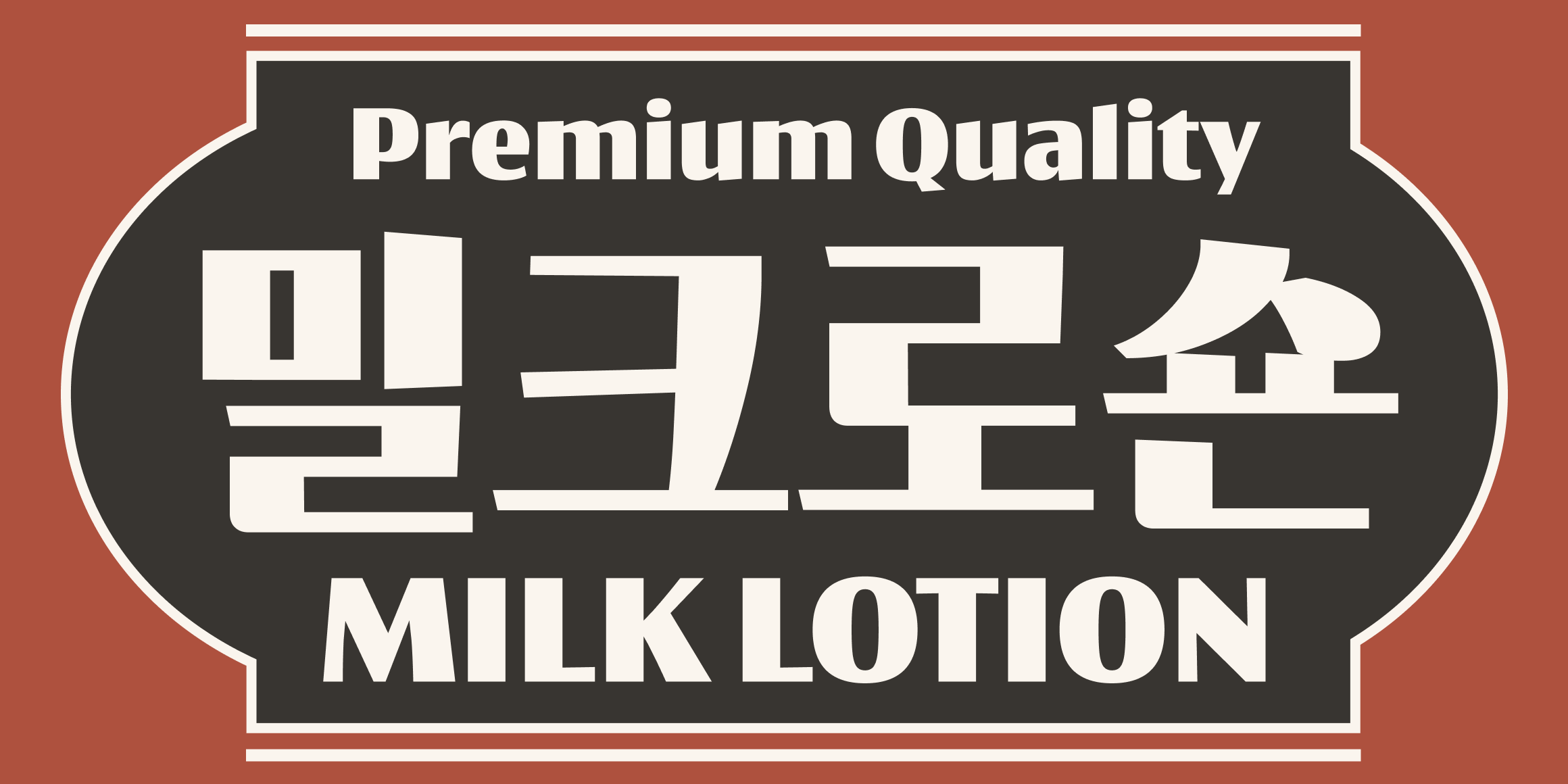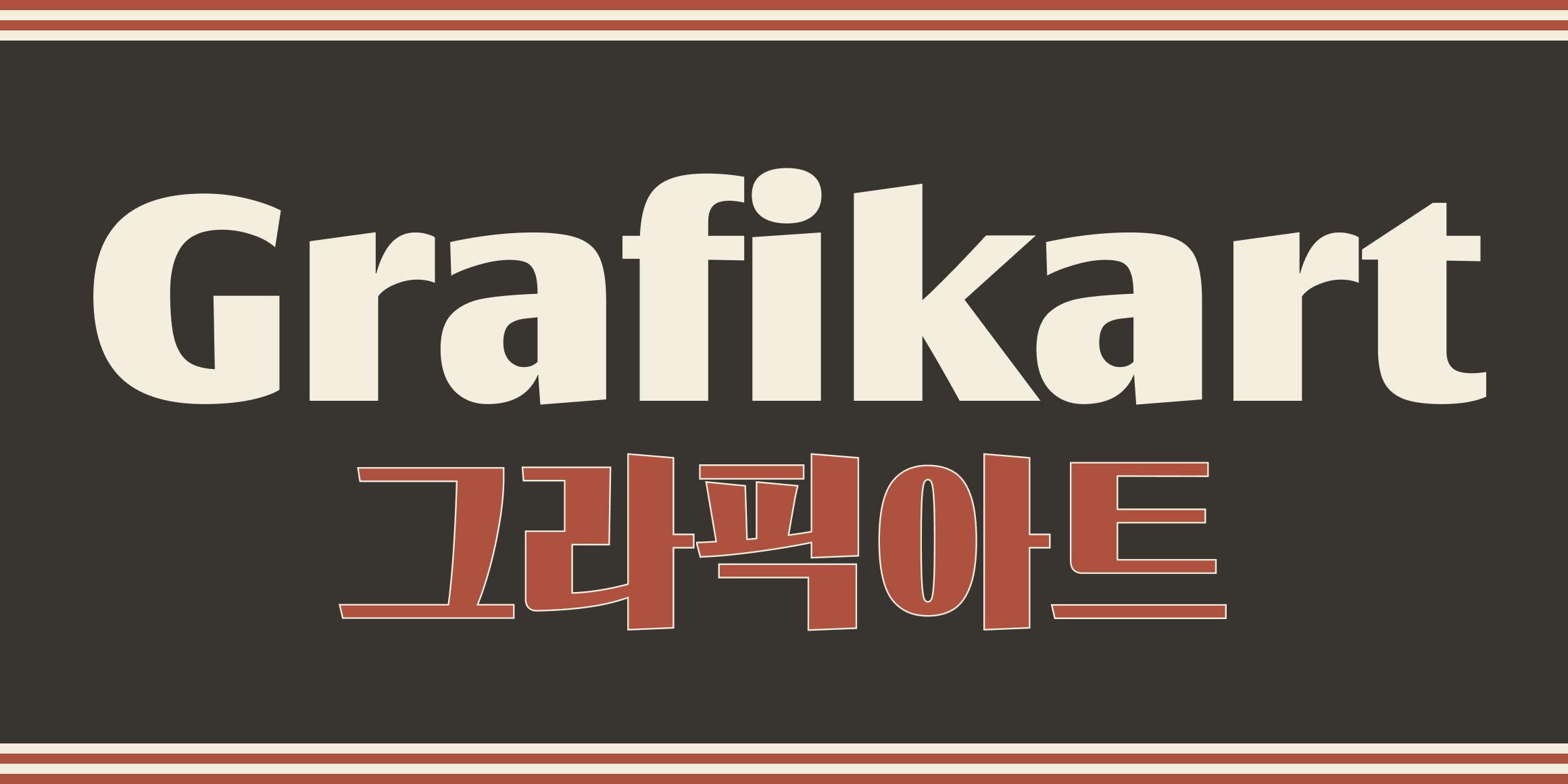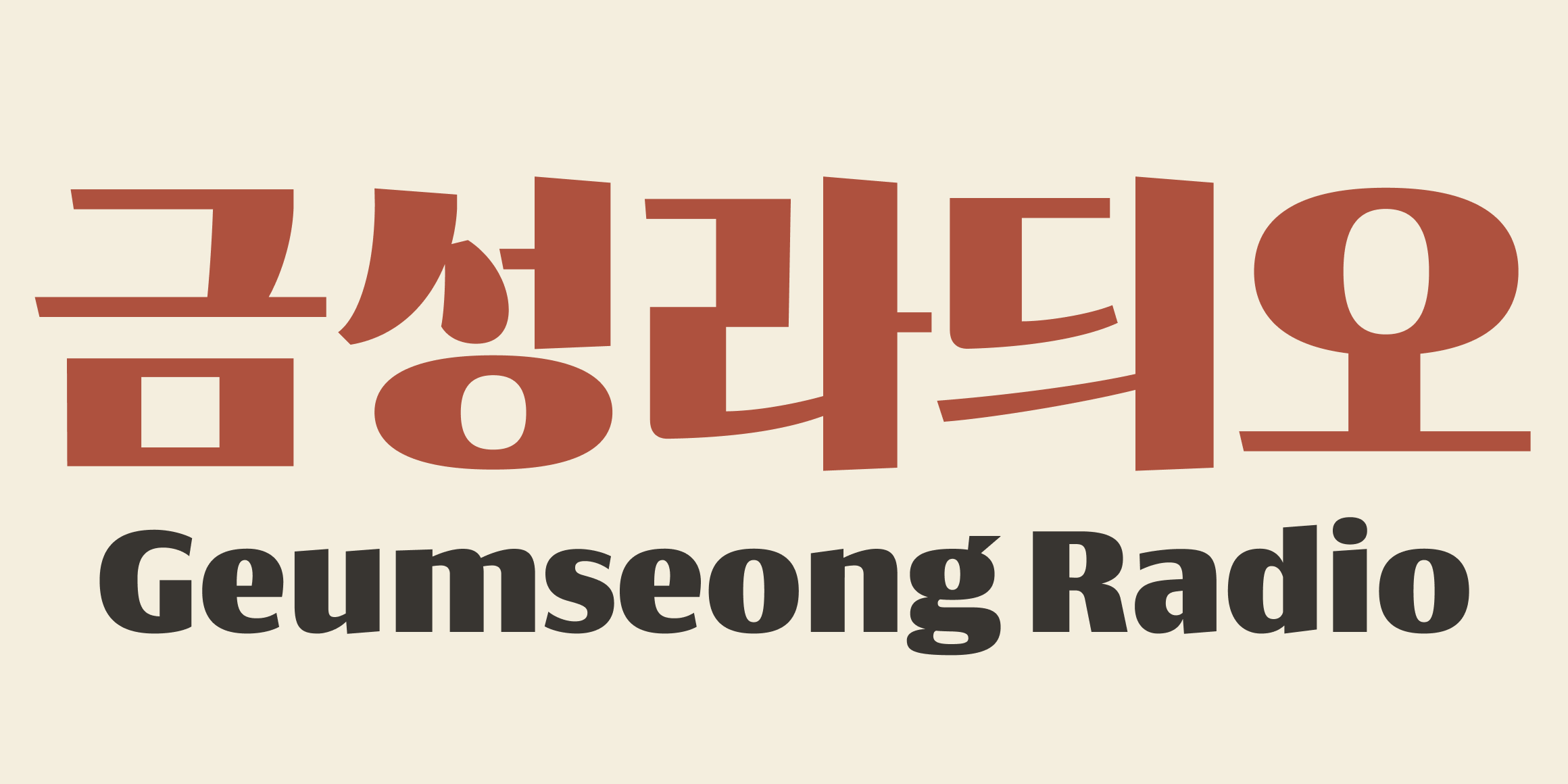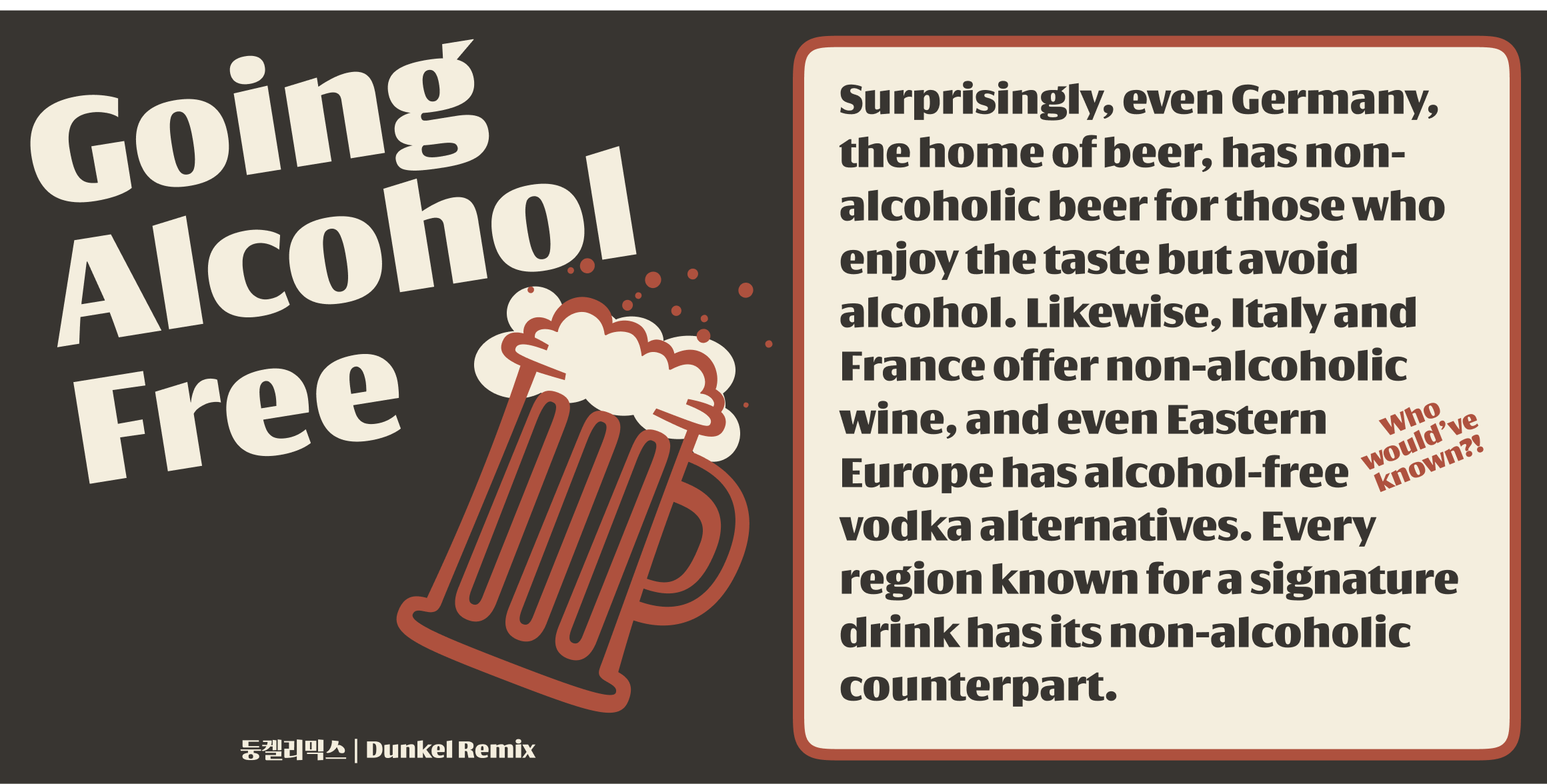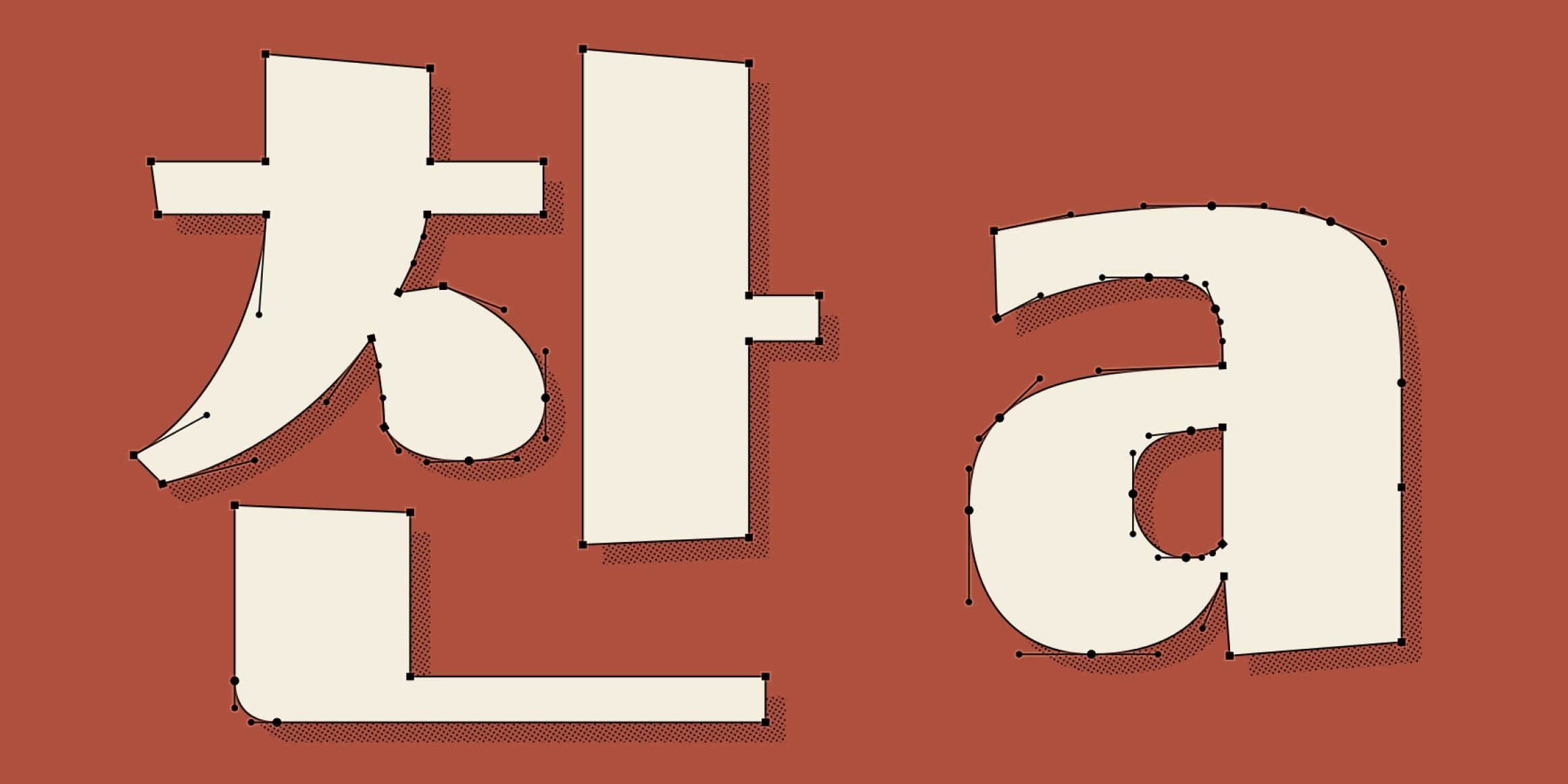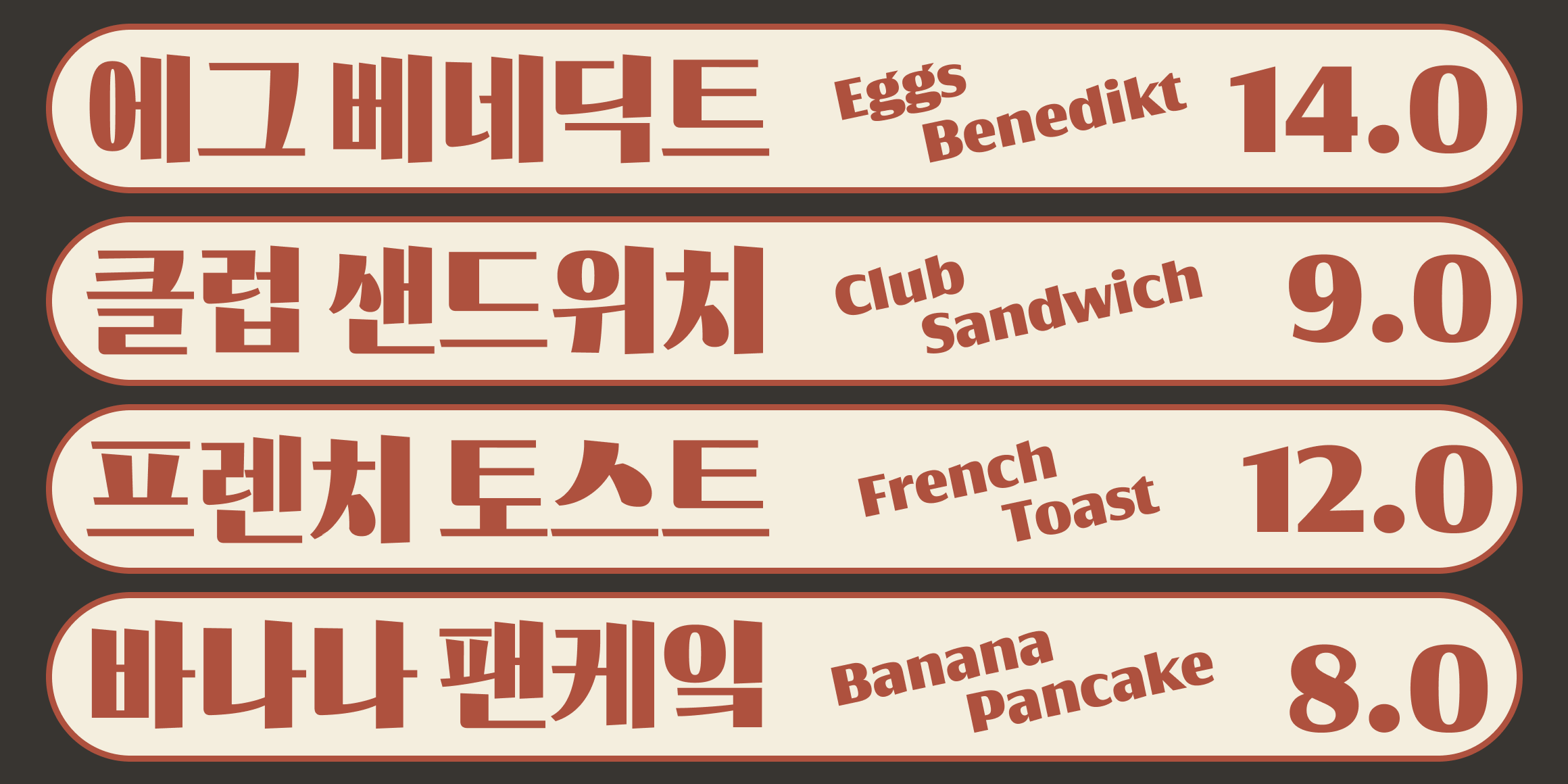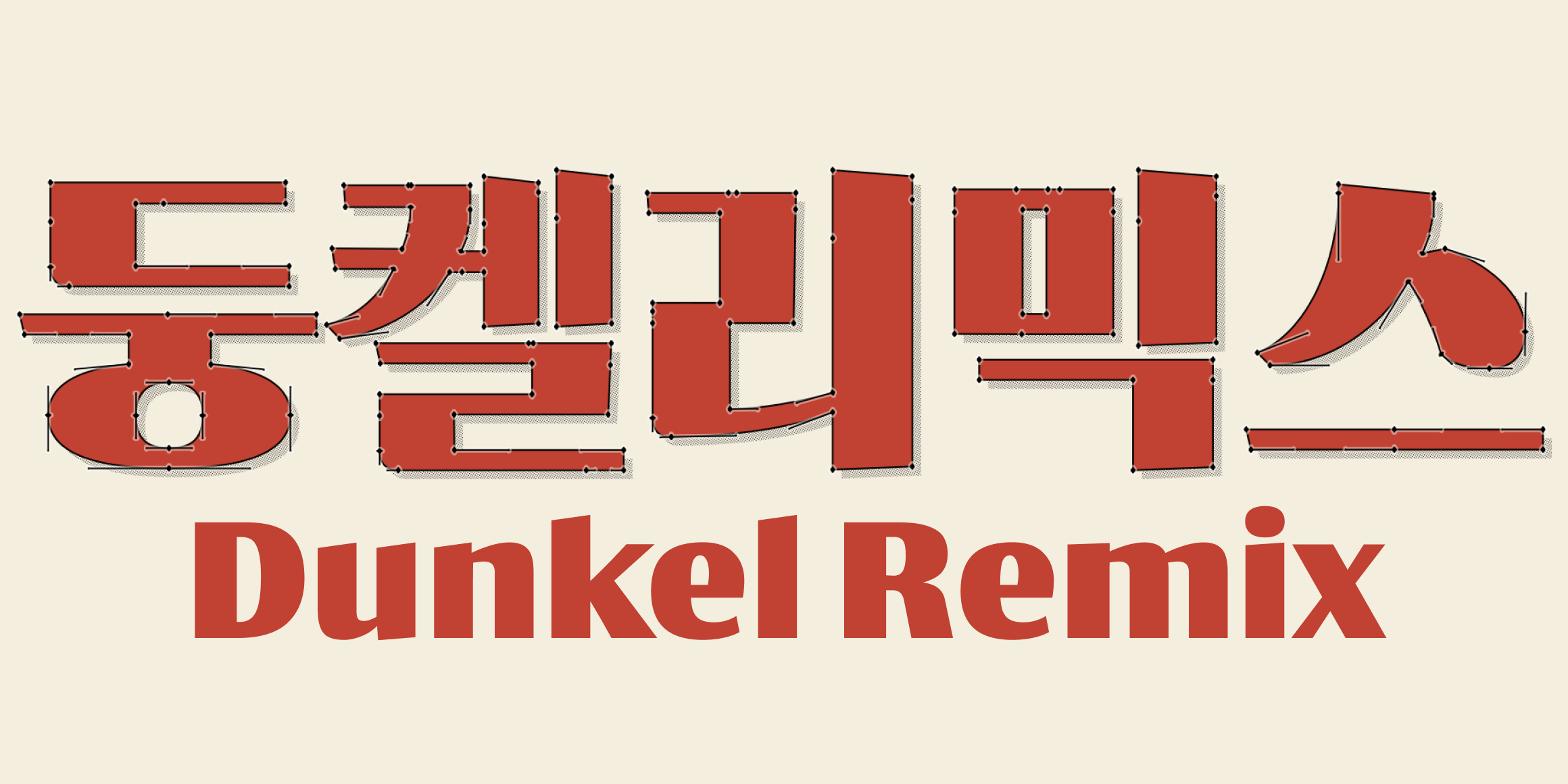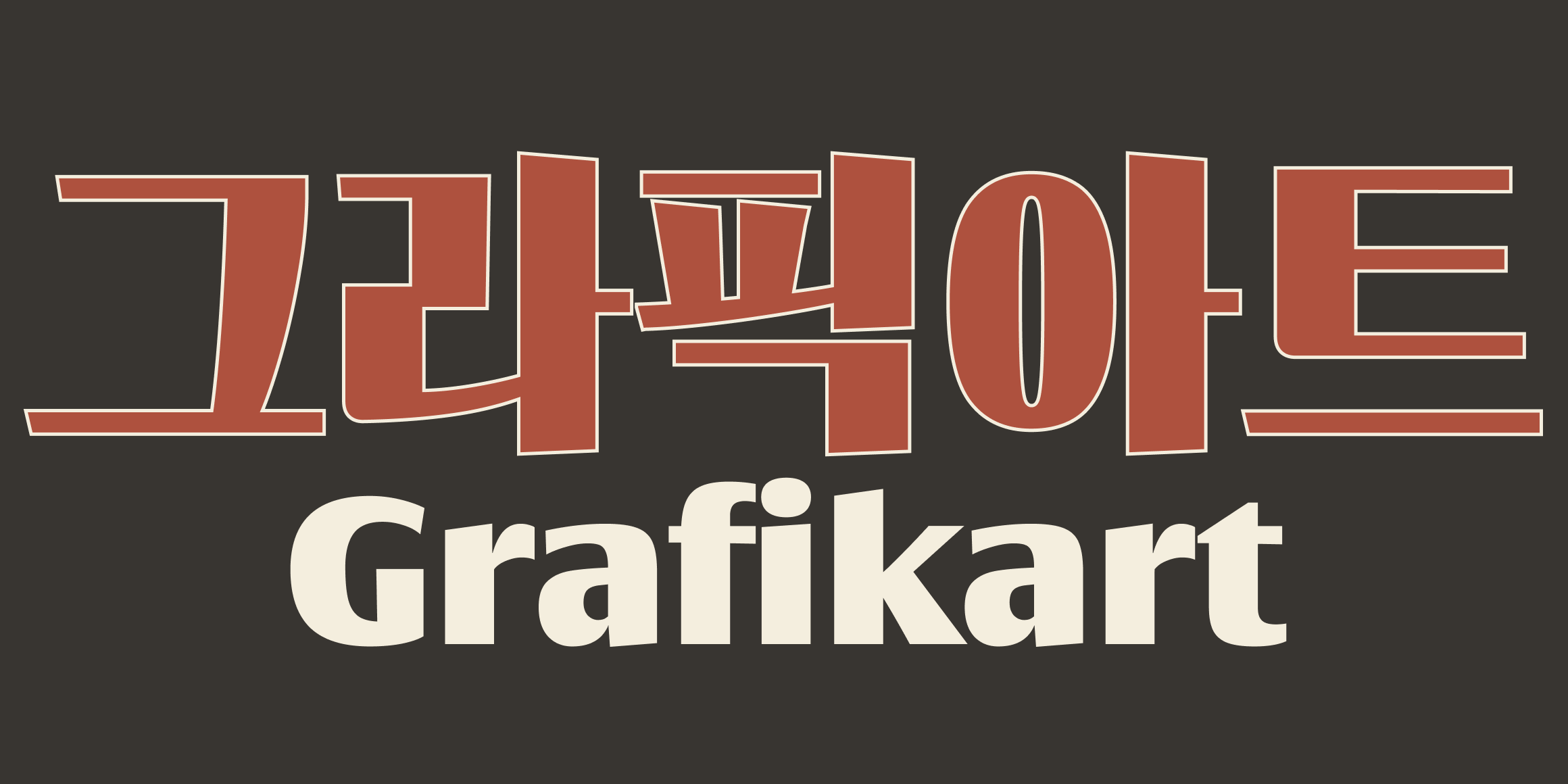
The Latin version of Dunkelserif was initiated by Minjoo Ham and further perfected through the meticulous refinements of Mark Frömberg. This collaborative effort has resulted in a font that exudes sophistication and excellence.
Whether you're creating posters, books, thumbnail titles, or package designs, Dunkelserif comes highly recommended. Its versatility and visual impact make it an ideal choice for a wide range of design projects.